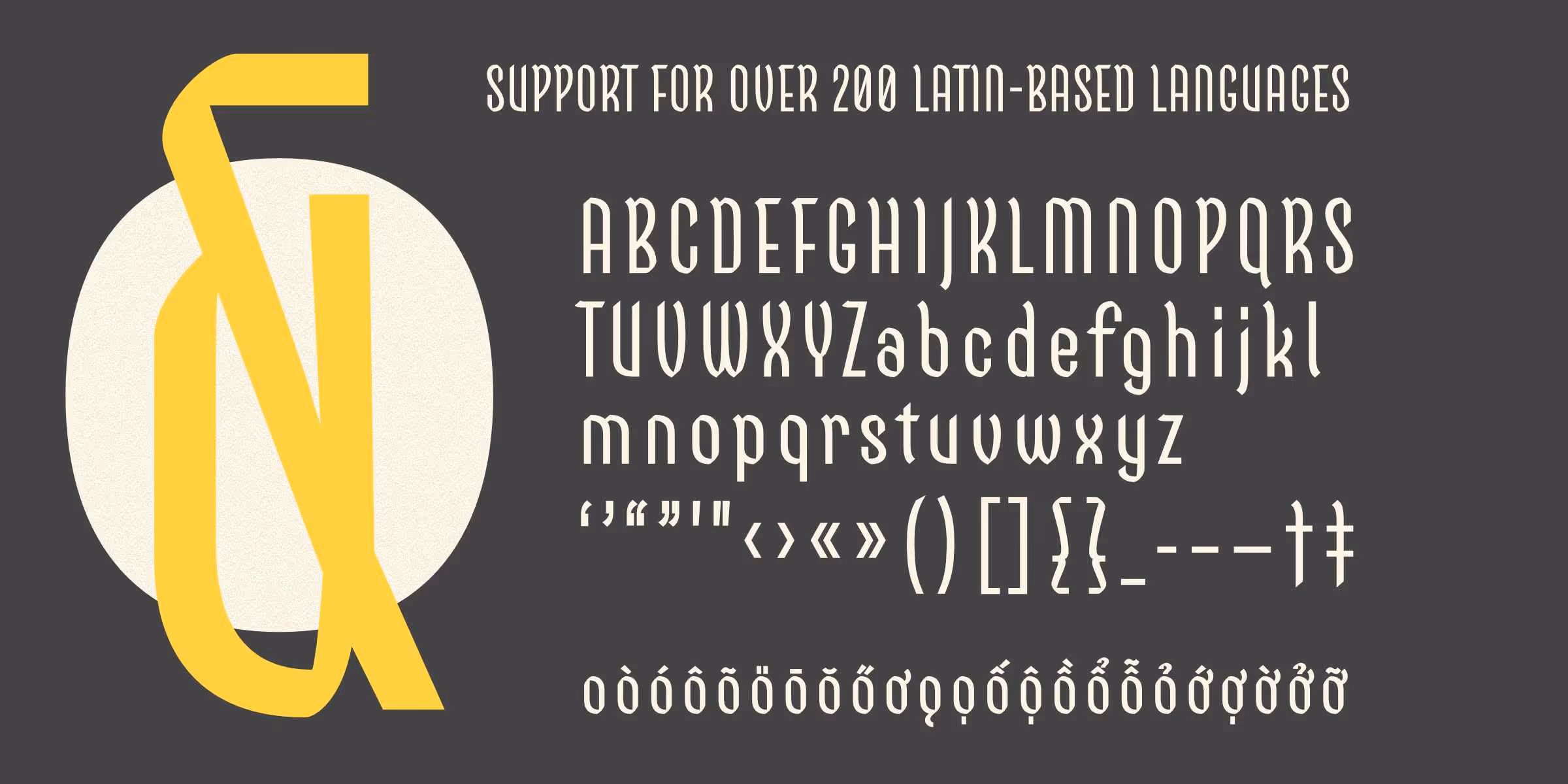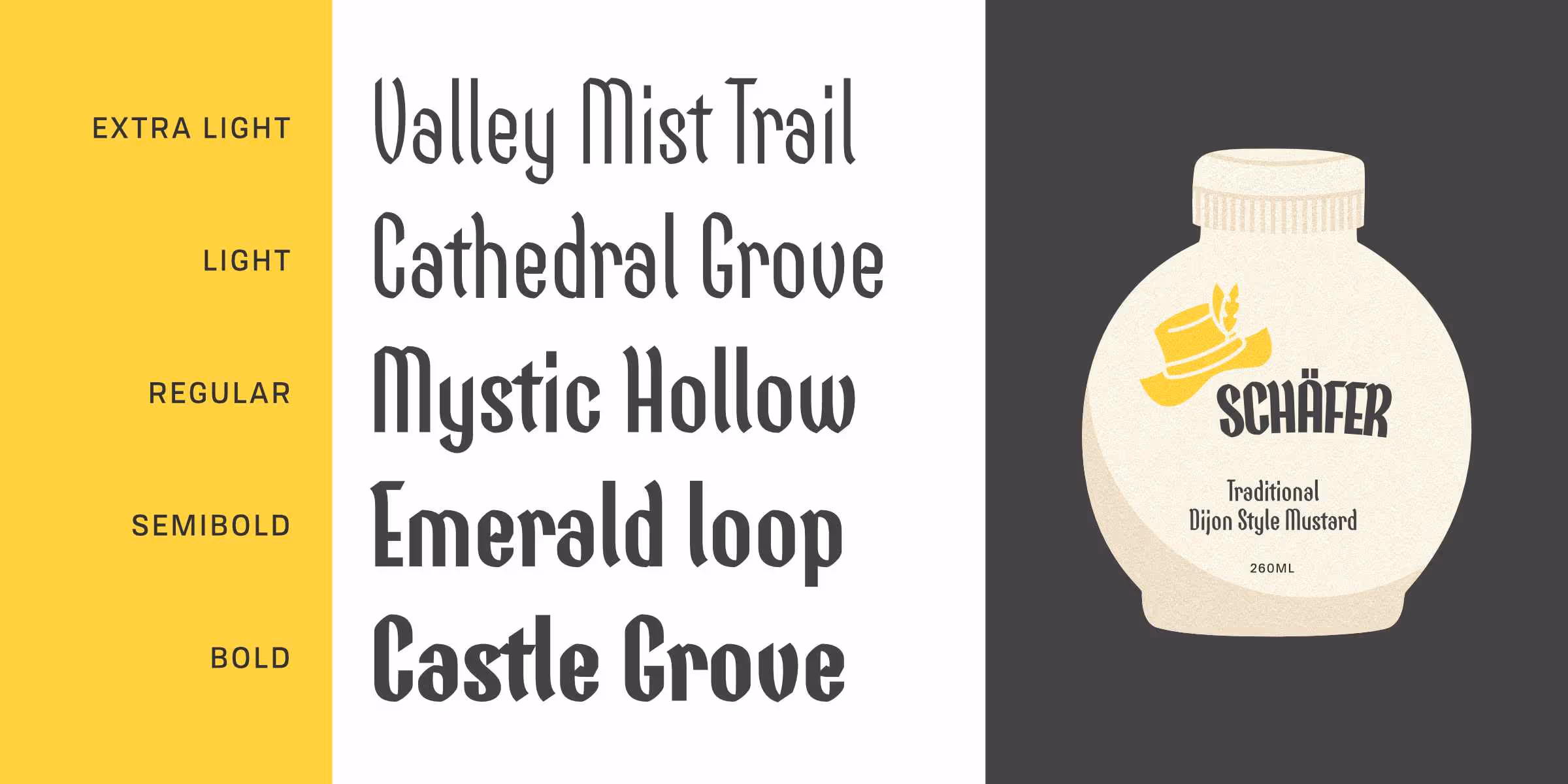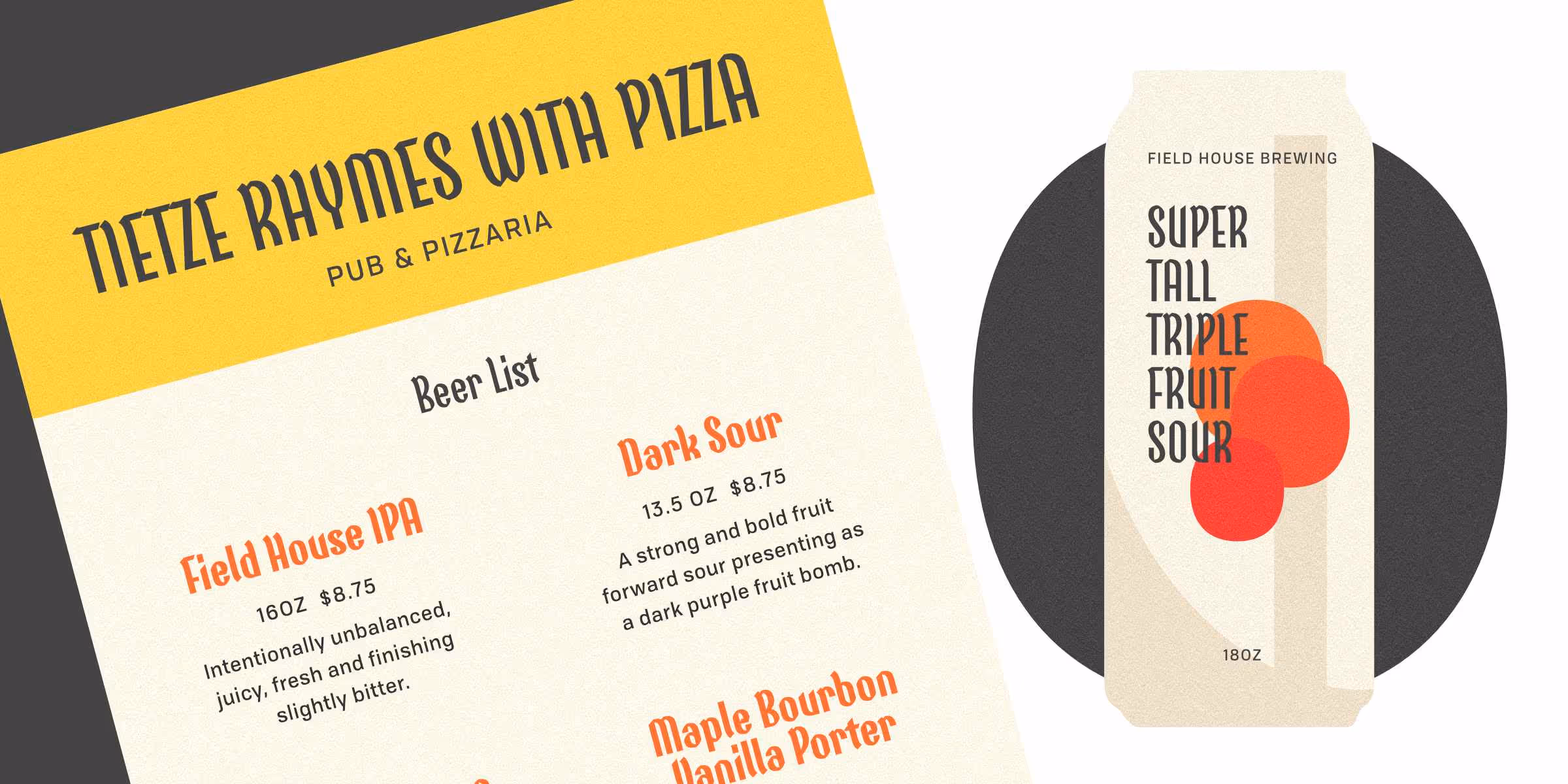
A centred yellow circle with "Amberwood" in dark grey letters on top. A centred yellow circle with "Amberwood" in dark grey letters on top.
Amberwood Typeface Family
Amberwood is a merging of sans serif and blackletter style letterforms. With a unique blend of deliberate curves and a solid stance on the baseline, it resembles tall trees in a dense wood. This font exudes a whimsical yet sophisticated charm that’s perfect for making enchanting projects.
The five different weights are down the left side of the image from extra light to bold. The right side has a mock up of Amberwood being used on a mustard bottle.A large yellow ampersand takes up the left side of the image and has a sample of the full alphabet and extra letters needed for language support next to it.
Ligatures
Aficionados Aficionados
A mock up pub menu is on the left with a beer list using Amberwood as the display font. The right side has a mock up of it in use on the label of a beer. The image has a logo style composition that reads "Cathedral Grove" in a yellow circle. The right side of the image shows the word "king" in large yellow letters.
About Amberwood
Amberwood is a merging of sans serif and blackletter style letterforms. With a unique blend of deliberate curves and a solid stance on the baseline, it resembles tall trees in a dense wood. This font exudes a whimsical yet sophisticated charm that’s perfect for making enchanting projects.
Whether you’re designing a fairy tale book cover, crafting a fantasy logo, or creating eye-catching packaging for food or beer, this font will add a touch of “ye olde awesome” to your designs. Its slender form makes it ideal for headlines, titles, and logos, and its distinctive character gives your text a unique and creative edge.